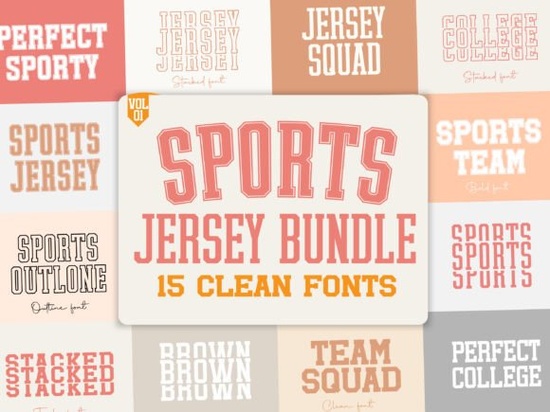
The Sports Jersey Bundle Font is a great addition to any designer’s toolkit, especially for those working on projects with a sports or vintage vibe. This font brings a classic varsity feel that can enhance everything from wedding invitations to fashion branding. Whether you're creating a custom design for a sports team or adding a retro touch to a logo, this font offers sharp, clean outlines that make it easy to work with in various formats.
When looking for fonts that combine style and functionality, the Sports Jersey Bundle Font stands out. It’s designed with versatility in mind, making it suitable for both digital and print projects. The font’s structure ensures clarity at different sizes, which is essential for anything from small labels to large banners. If you’re exploring other display fonts with similar aesthetics, you might also want to check out the Ghouls Halloween Font or the Retro Distressed Font for more creative options.
What Makes This Font Unique?
The Sports Jersey Bundle Font isn’t just another display typeface it’s crafted to bring a sense of nostalgia and energy to your designs. Its bold, outlined letters give it a strong visual presence, while the subtle details add character without overwhelming the overall look. This makes it ideal for projects where you want to make a statement without sacrificing readability.
One of the key features of this font is its adaptability. You can use it for everything from sports-themed marketing materials to personal branding. For example, if you're running a print-on-demand business, this font could help you create eye-catching t-shirts, mugs, or posters that stand out in a crowded market. It pairs well with other fonts like the Hanky Font or the Black Grunge Font, allowing you to build cohesive design themes.
Best Uses for the Sports Jersey Bundle Font
This font works best when used in contexts that benefit from a strong, confident look. Here are some common applications:
- Wedding invitations: Add a playful yet elegant touch to your event designs.
- Sports team logos: Create a professional and recognizable brand identity.
- Fashion branding: Use it for labels, tags, or promotional materials.
- Printable art: Ideal for creating posters, stickers, or greeting cards.
How to Use This Font Effectively
To get the most out of the Sports Jersey Bundle Font, consider how it will fit into your overall design. Since it’s a display font, it’s best used in smaller quantities like headlines, titles, or accents rather than full paragraphs. This helps maintain visual balance and avoids cluttering your layout.
For those new to using display fonts, it’s helpful to pair them with simpler, more readable typefaces. For example, using the Sports Jersey Bundle Font for a headline and a basic sans-serif font for body text can create a clean, professional look. You can also experiment with color and layering to make the font stand out even more.
If you enjoy the Sports Jersey Bundle Font, there are other fonts that may interest you. The Hanky Font, for instance, offers a more handwritten, casual feel, while the Black Grunge Font adds a darker, edgier aesthetic. Each of these fonts can be used in different design scenarios, giving you more flexibility in your creative projects.
For a broader selection of fonts that match your style, visit the Sports Jersey Bundle Font Display Fonts page. There, you’ll find a range of options that can help you find the perfect typeface for your next project.
Whether you're a designer, a crafter, or a small business owner, the Sports Jersey Bundle Font is a valuable resource for adding a unique touch to your work. With its clean lines and versatile use, it’s a great choice for anyone looking to elevate their design game without overcomplicating things.
Before finalizing your design, take a moment to review your layout and ensure the font complements the rest of your elements. A little attention to detail can go a long way in making your work stand out.
Quick Checklist:
- Test the font at different sizes to ensure readability.
- Pair it with complementary fonts for balance.
- Use it in small doses for maximum impact.